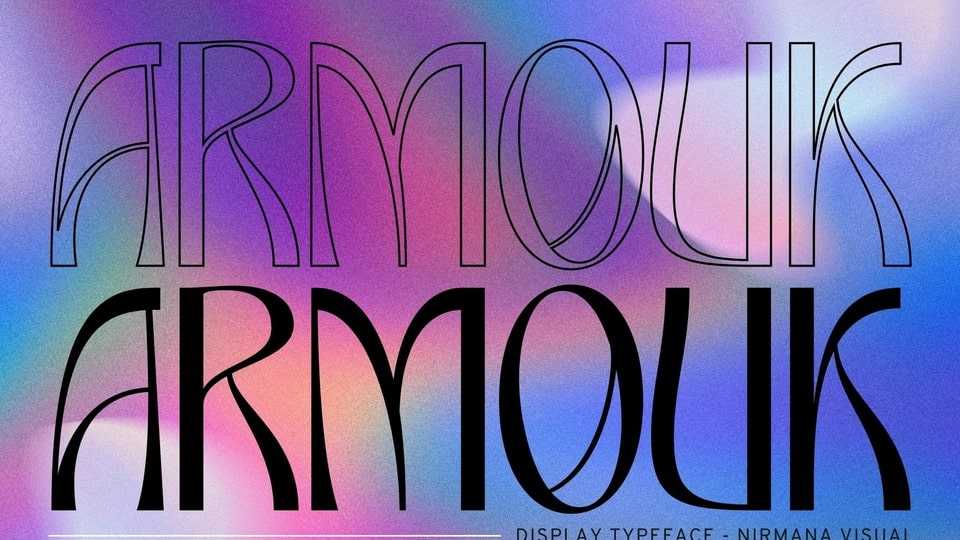
Download Armouk font, a contemporary sans serif typeface that offers beautiful typographic harmony. Armouk is perfect for a diversity of design projects, including logos and branding, social media posts, advertisements and product designs.